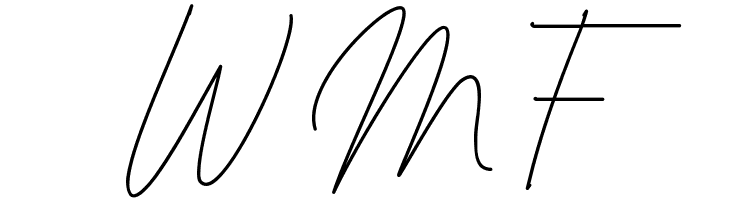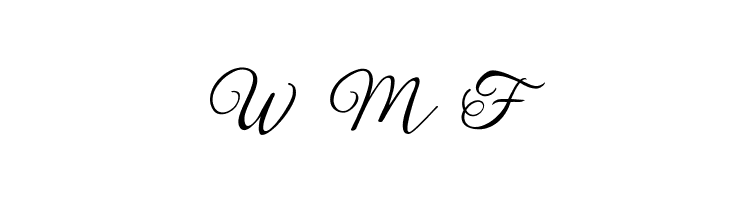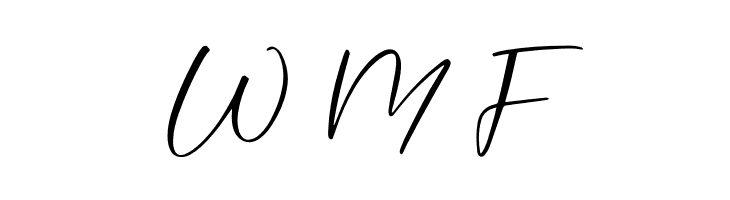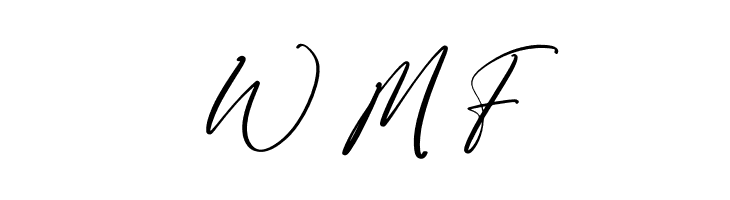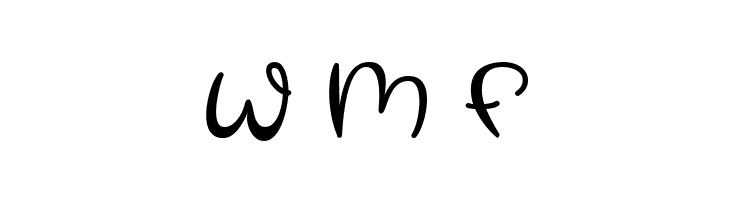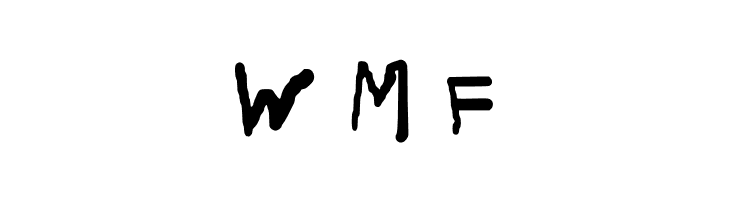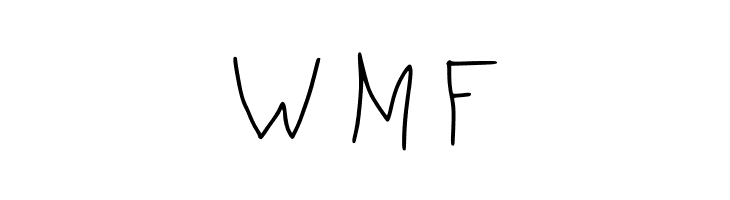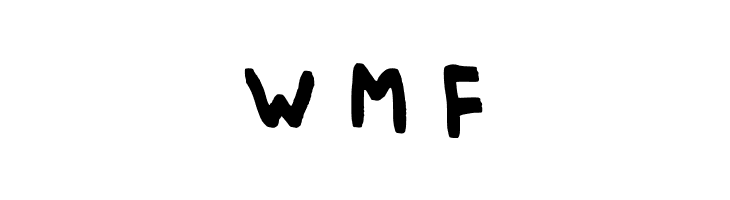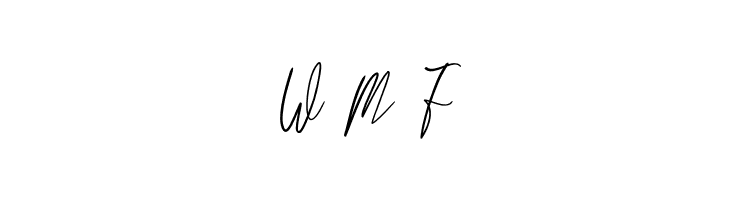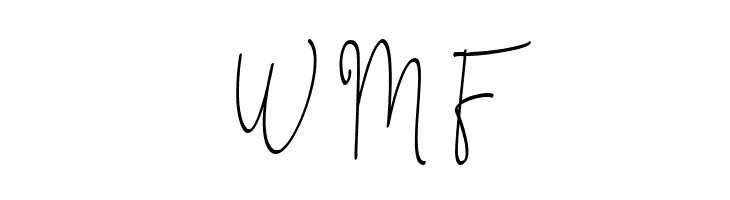
( Fonts by Nabila )
A graceful, handwritten script font with flowing, connected characters.
A fluid and elegant cursive script with a handwritten appearance.
( Fonts by Integritype Studio )
A graceful and fluid script font with elegant cursive letters.
( Fonts by Maulana Creative )
A delicate, flowing script font with elegant, interconnected strokes.
( Fonts by Andi Moz )
An elegant, flowing script font with tall, narrow letters and decorative swirls.
( Fonts by epiclinez )
A playful, whimsical font with flowing, cursive-like strokes and unique character shapes.
( Fonts by Letterara )
A stylish, elegant handwritten font with fluid, continuous strokes.
( Fonts by Muhammad Halomoan )
A dynamic and fluid handwritten script with elegant, flowing strokes.
A flowing, cursive font with elegant, sweeping strokes and a sophisticated appearance.
A bold, playful handwritten font with thick strokes and a casual style.
( Fonts by 177Studio )
A sophisticated and fluid script font with a handwritten appearance.
A playful, handwritten font with irregular strokes and a casual style.
A playful, handwritten brush-style font with bold, consistent strokes.
A playful, handwritten font with a casual and informal style.
A playful, hand-drawn font with a whimsical and informal style.
A playful, hand-drawn font with a casual and informal style.
( Fonts by Gede Sugiantara )
A fluid, elegant handwritten font with smooth, connected strokes.
( Fonts by RantautypeStudio )
A lively, cursive handwritten font with fluid, connected letters.
( Fonts by RantautypeStudio )
An elegant font with flowing swashes and sophisticated curves.
( Fonts by NihStudio )
A sophisticated cursive script font with a fluid, handwritten style.
( Fonts by Ianmikraz )
An elegant script font with flowing, handwritten-style characters.
( Fonts by Moonstone Co )
A dynamic and elegant script font with flowing, cursive letterforms.